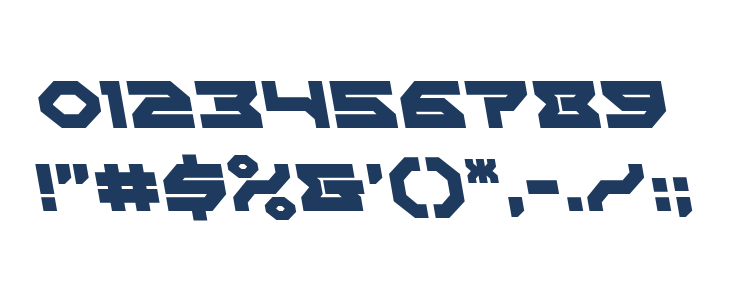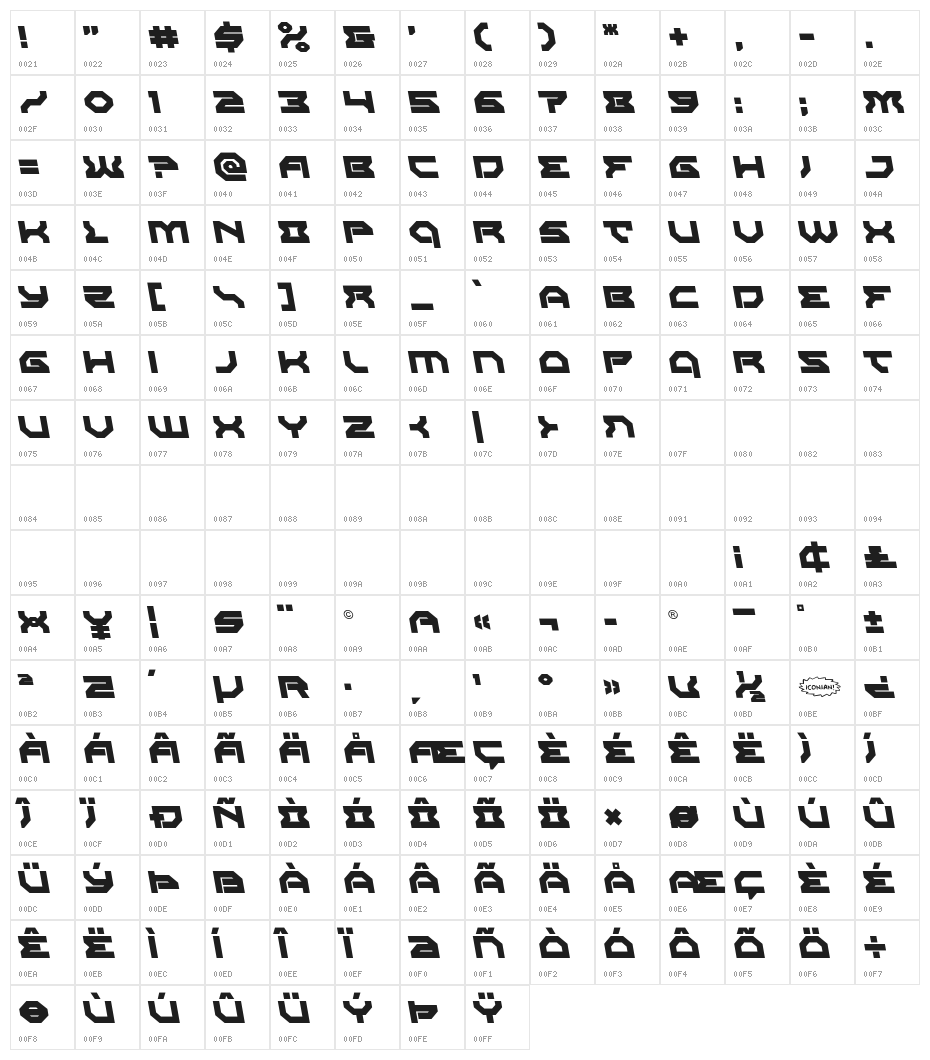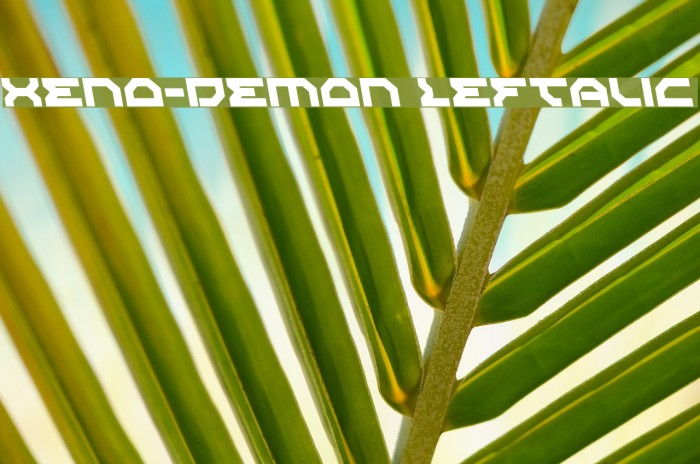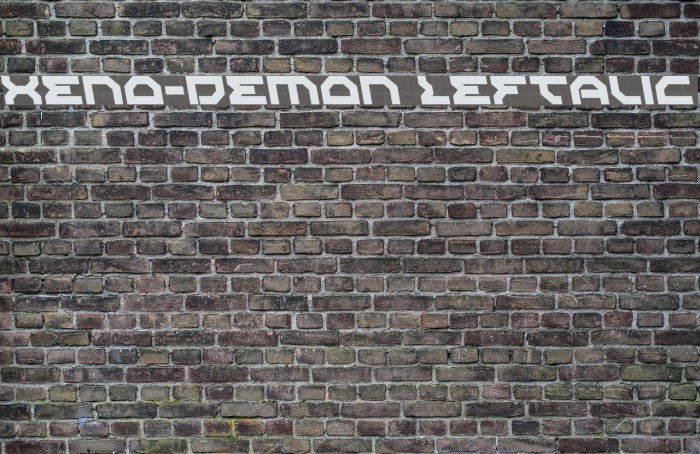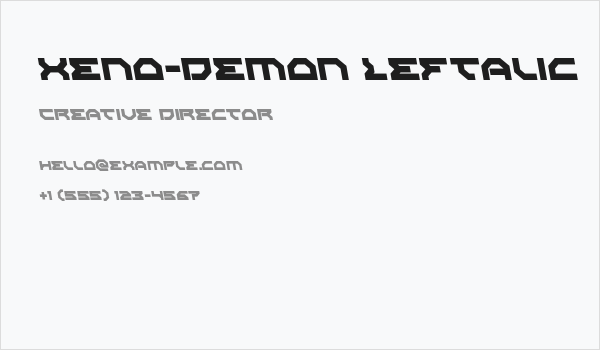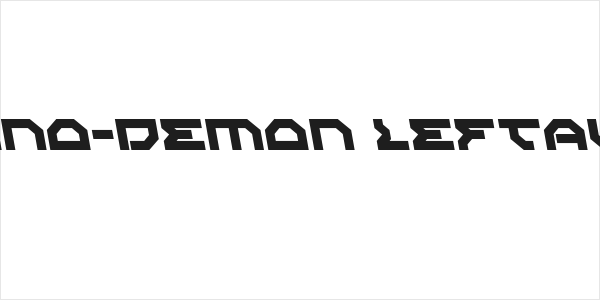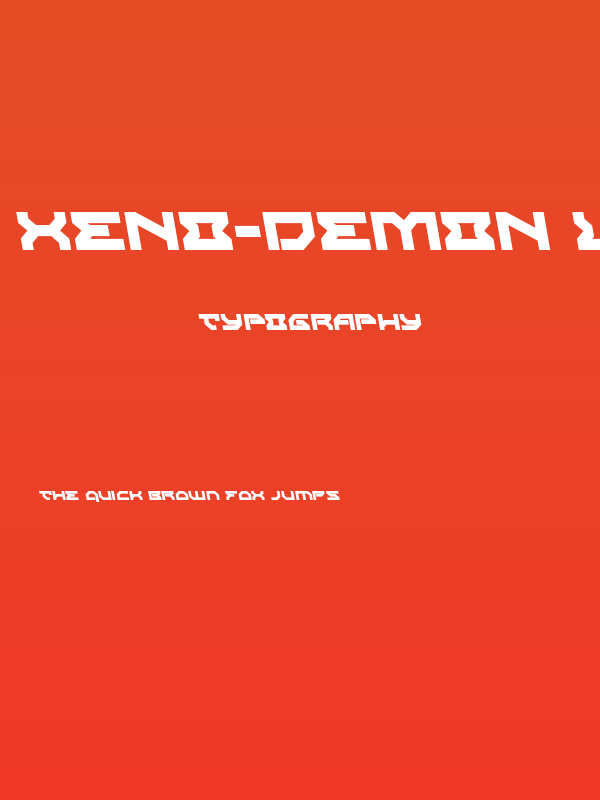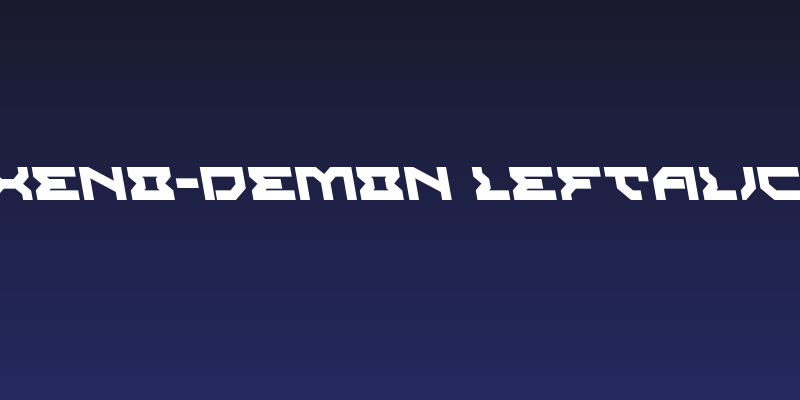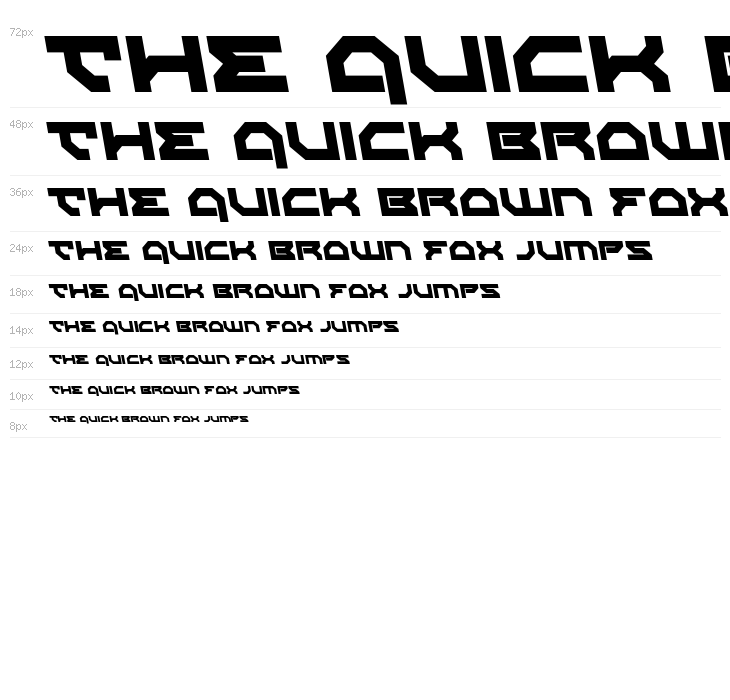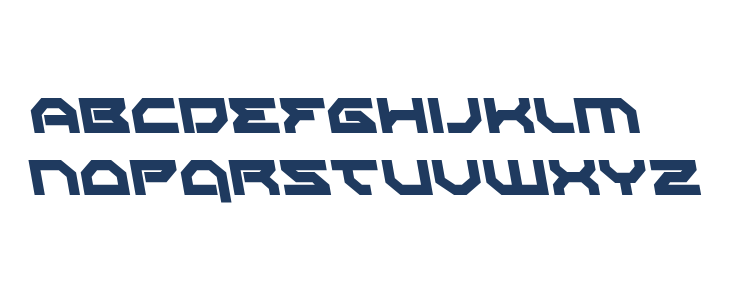
Xeno-Demon Leftalic Font
Xeno-Demon Leftalic Description
This font features a bold, angular design with a futuristic and aggressive aesthetic. The characters are constructed with sharp edges and geometric shapes, giving it a distinctive, cutting-edge appearance. The uppercase and lowercase letters maintain a consistent style, while the numerals and special characters complement the overall design. The font's unique style makes it stand out, suitable for projects that require a strong, modern, and dynamic look.
| Overall Style | Futuristic, Aggressive |
| Proposed Projects | Ideal for sci-fi themed projects, video game titles, movie posters, and branding that requires a modern and edgy look. |